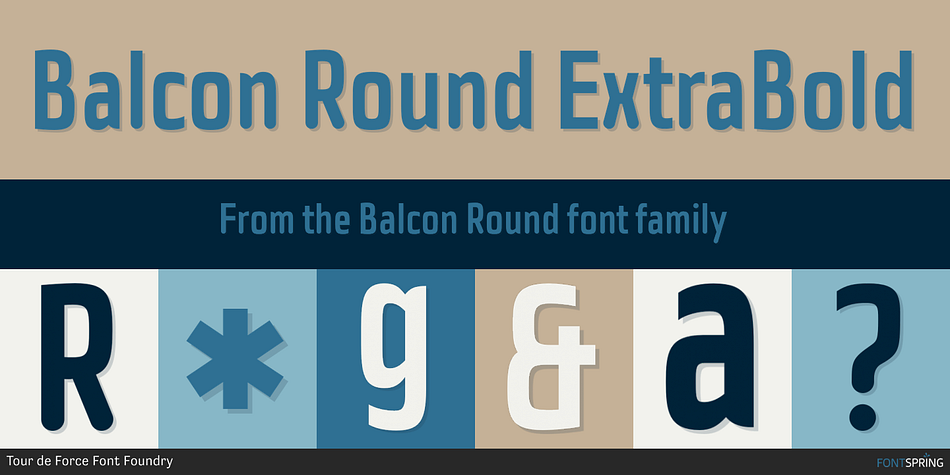
Balcon Round ExtraBold
Balcon Round is a sans serif font family. This typeface has five styles and was published by Tour de Force Font Foundry.
Balcon is condensed sans family designed to be your first web font choice.
Balcon is condensed sans family designed to be your first web font choice. Contains 5 weights: Light, Regular, Bold, ExtraBold and Black, it fits perfect into any project, from editorial editions to packages, labels, posters.  If you’re looking for “sharp” version of this family, feel free to check Balcon sans family.